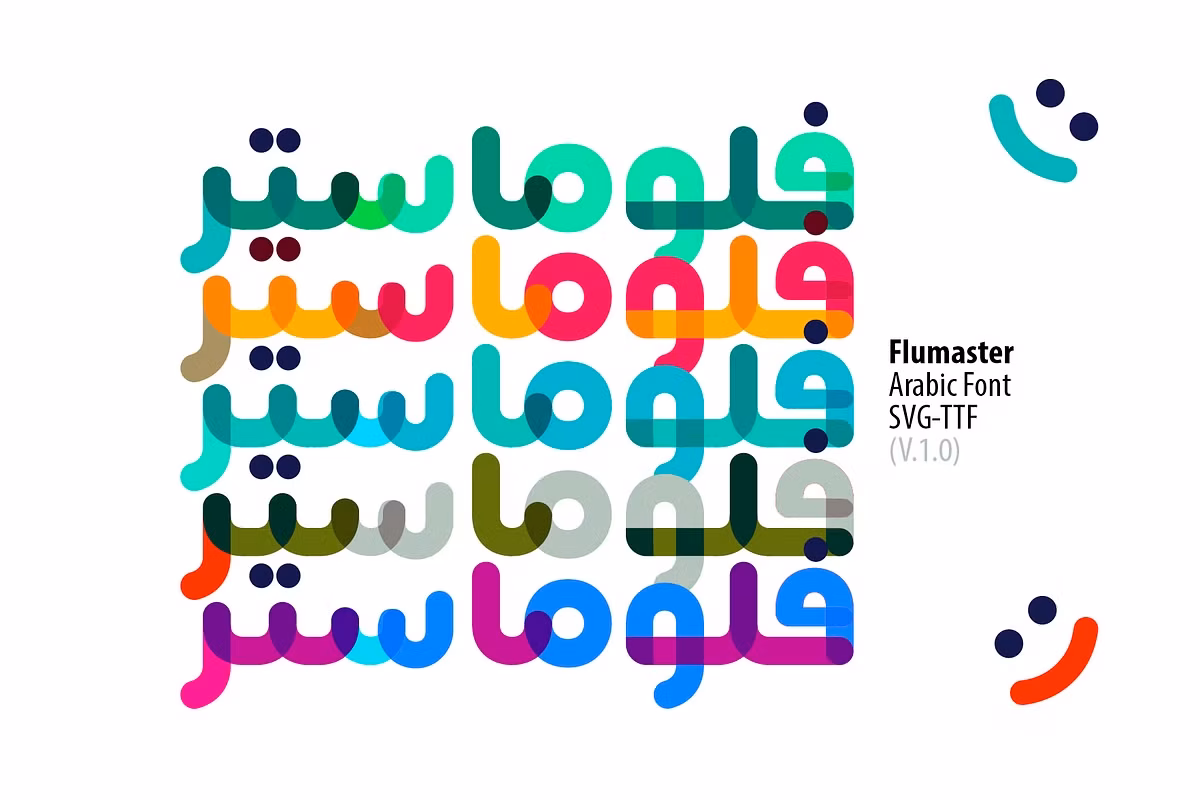
Flumaster - Arabic Color Font Free Download
Flumaster - Arabic Color Font Free Download is a vibrant and unique typeface that combines traditional Arabic calligraphy with modern, colorful design elements. The Arabic Color Font is perfect for adding an artistic, lively touch to projects that require bold typography, such as event posters, branding, packaging, and digital content.
This font brings a fresh and dynamic look to Arabic typography, allowing you to create expressive, colorful designs that stand out. Whether you are working on cultural projects or simply want to incorporate color into your designs, Flumaster - Arabic Color Font Free Download delivers an innovative approach to Arabic script.
Bring energy and vibrancy to your designs with Flumaster - Arabic Color Font Free Download, and create bold, expressive typography with a unique twist. Ideal for designers looking to add color and life to their Arabic fonts.